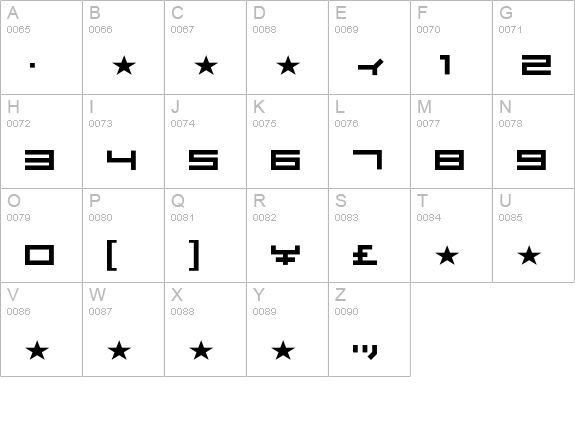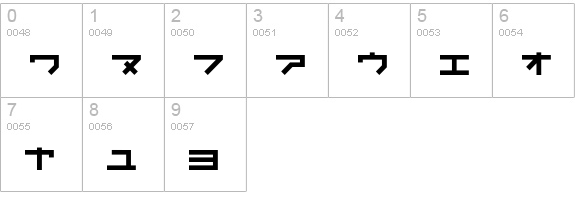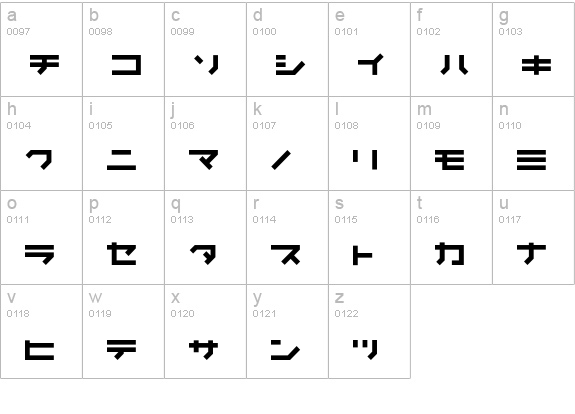
Kunstware-Katakana Font Details
The Kunstware-Katakana font is a stunning display typeface that beautifully combines traditional Japanese Katakana characters with a modern artistic flair. With its unique design and intricate details, this font is perfect for adding a touch of elegance and sophistication to your projects. Not only does Kunstware-Katakana offer a visually captivating aesthetic, but it also provides excellent readability and versatility across a wide range of design applications. Whether you're creating branding materials, invitations, posters, or any other design project, this font is sure to make a statement. Best of all, Kunstware-Katakana is available for free download at FontsMarket.com. So you can easily access this exquisite font and elevate your designs without any cost. Don't miss the opportunity to enhance your projects with the Kunstware-Katakana font today!